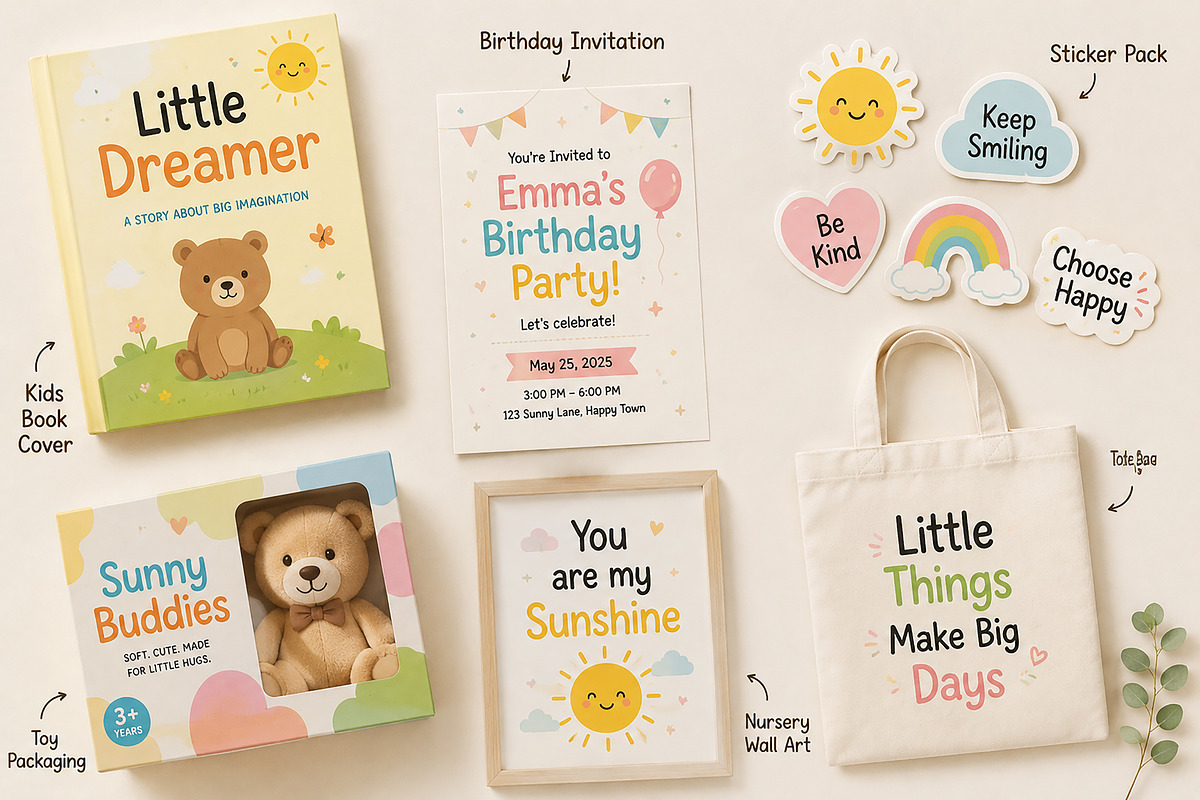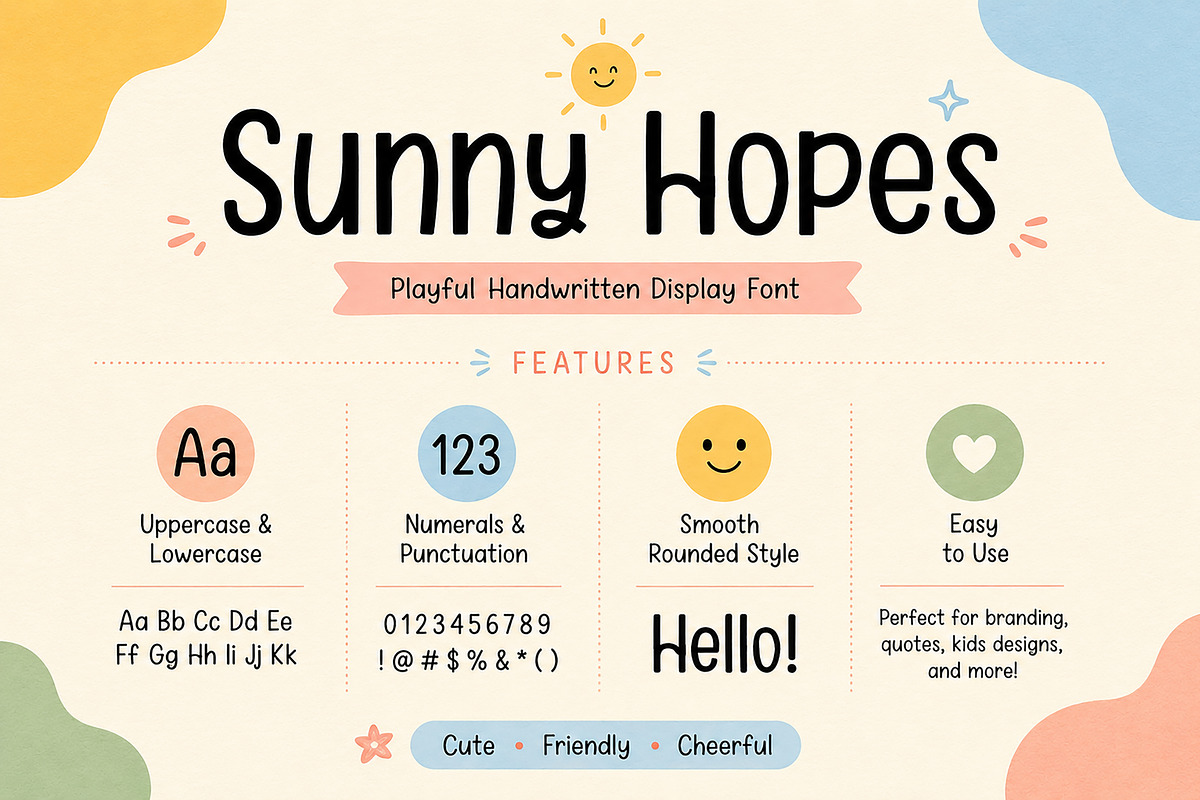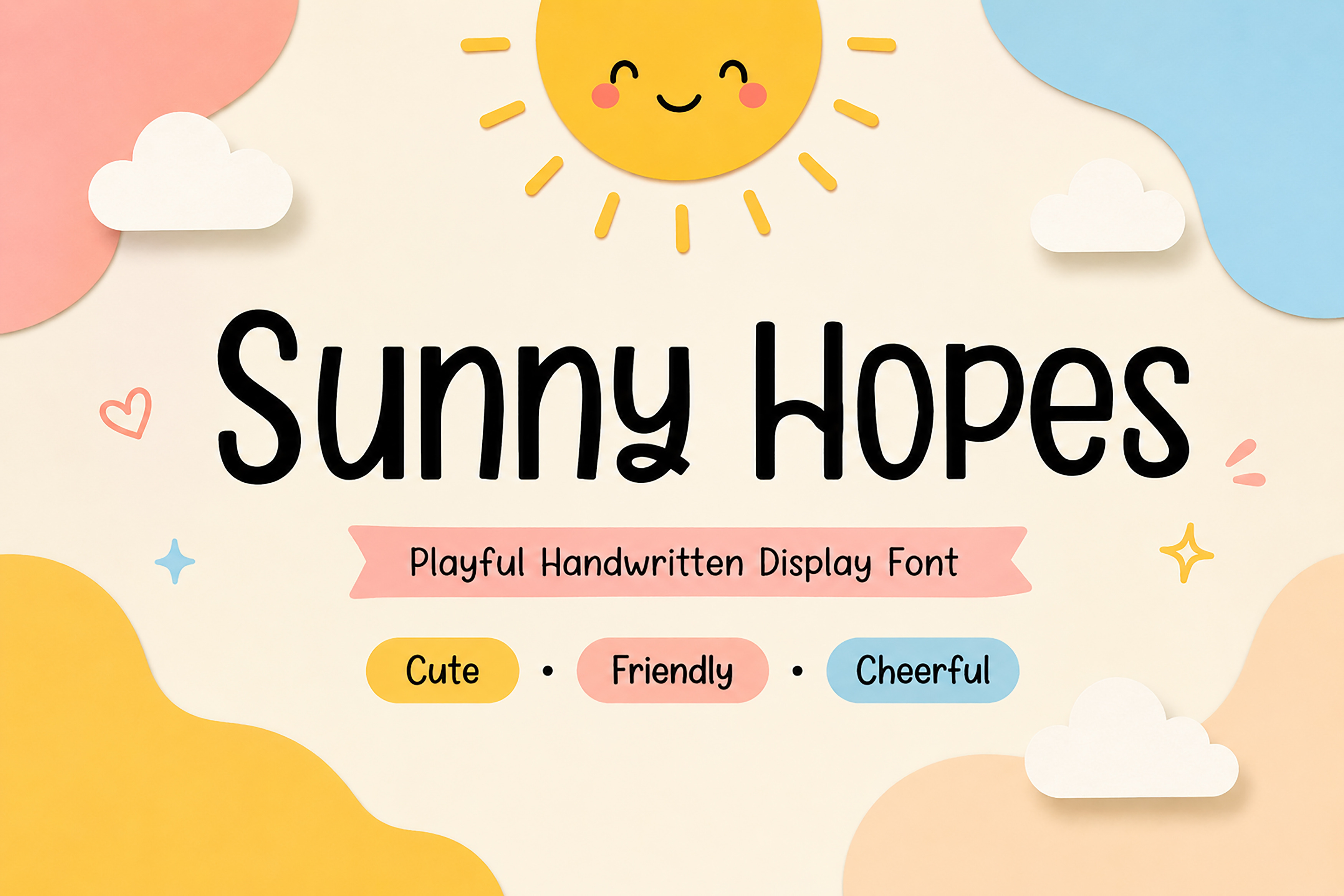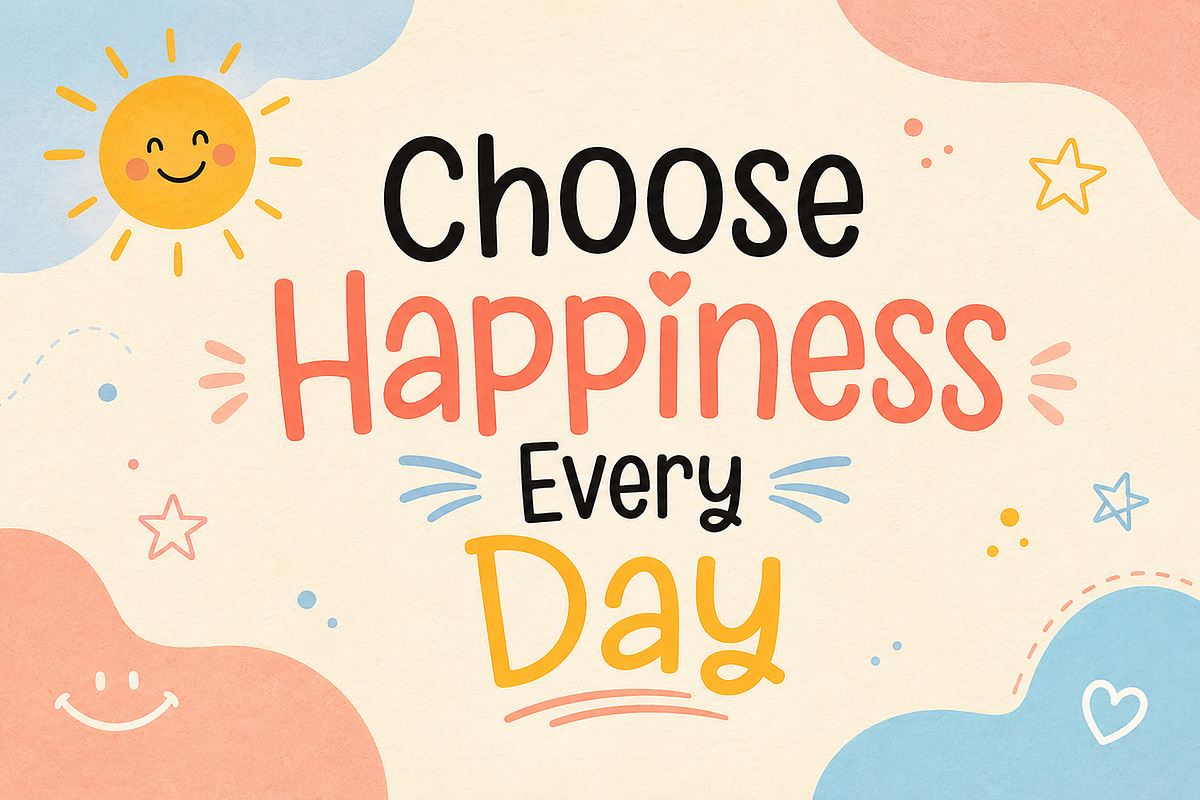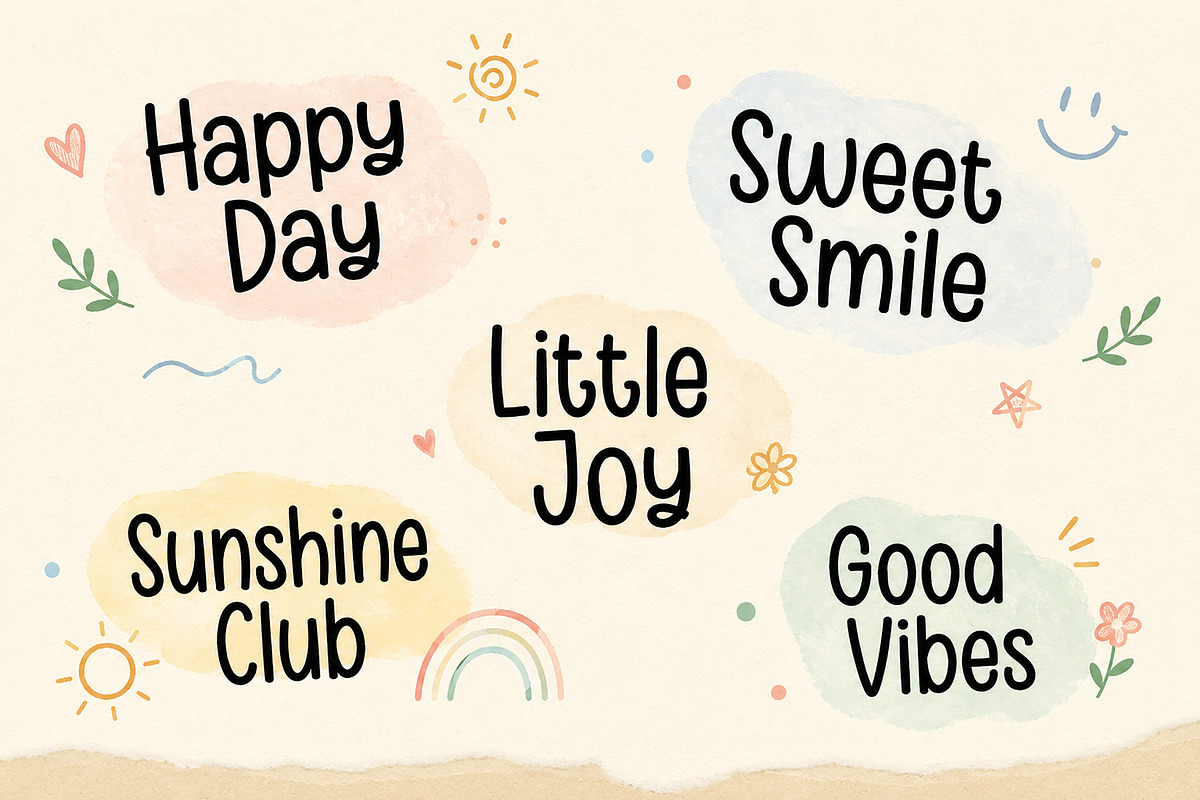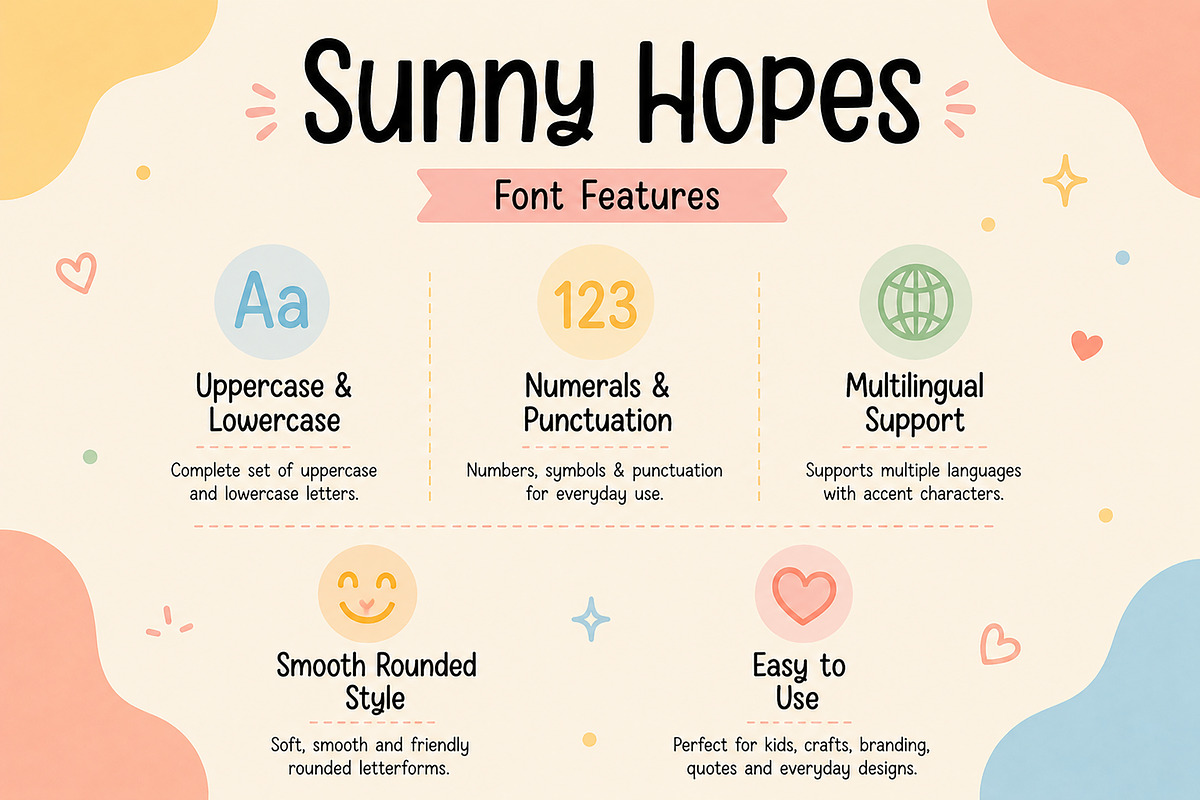
Sunny Hopes handwritten display font
Sunny Hopes –
Sunny Hopes is a cheerful and playful handwritten display font designed to bring warmth, joy, and creativity into your projects. With its soft rounded letterforms, friendly personality, and charming handcrafted feel, this font is perfect for kids-themed designs, playful branding, invitations, nursery decor, and fun social media content.
Its smooth curves and natural handwritten flow make it highly versatile for both digital and print use. Whether you’re creating children’s book covers, birthday invitations, stickers, toy packaging, or cute quote posters, Sunny Hopes adds a bright and happy touch to every design.
Kids Branding
Children’s Book Covers
Birthday Invitations
Nursery Wall Art
Sticker Designs
Toy Packaging
Social Media Posts
Cute Quote Posters
Blog Headers
DIY Craft Projects
Uppercase Letters
Lowercase Letters
Smooth Rounded Style
Sunny Hopes is the perfect choice for designers who want to create fun, friendly, and heartwarming designs with a handmade touch.